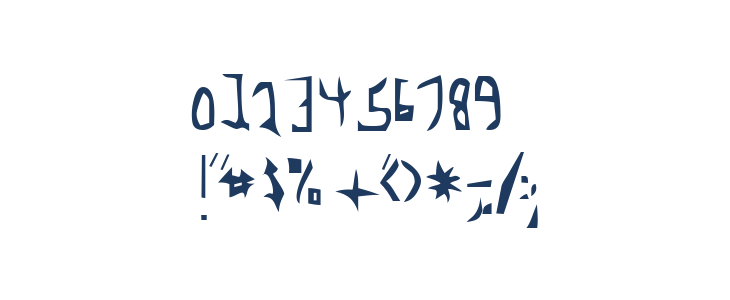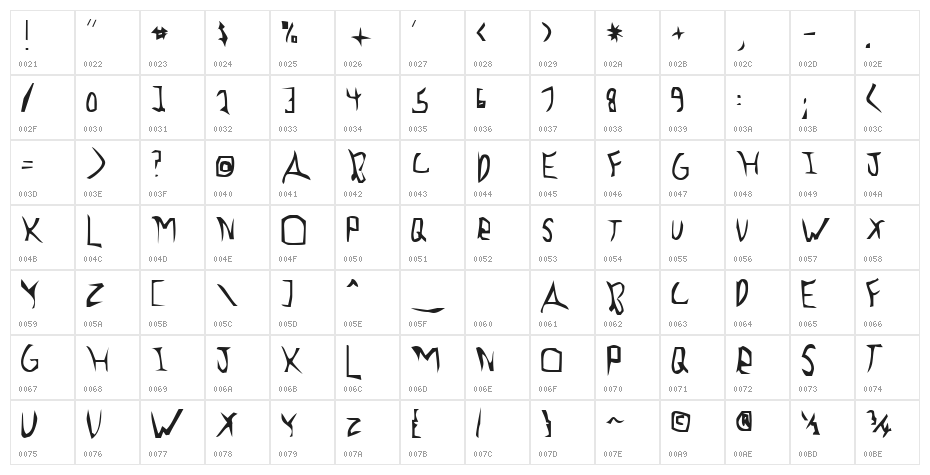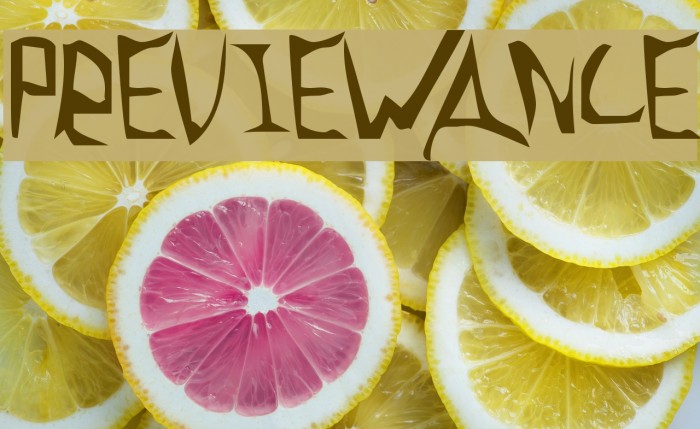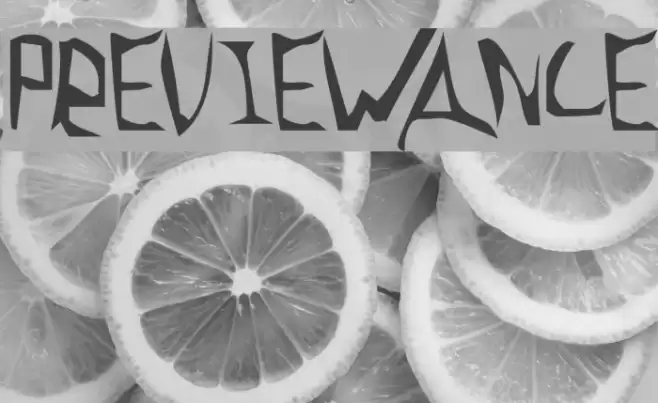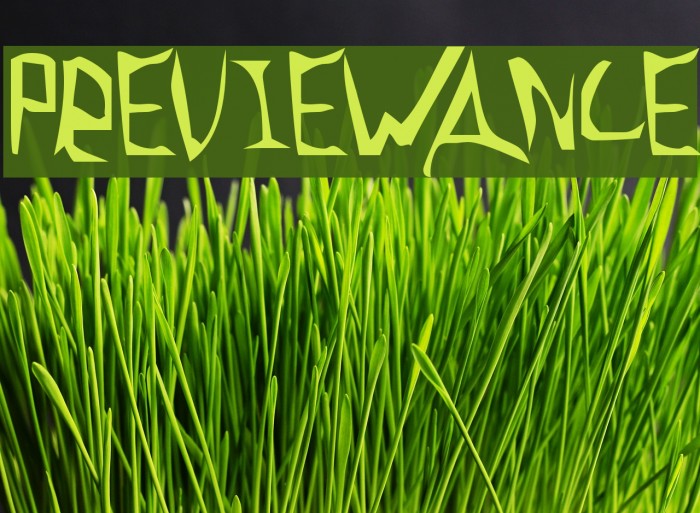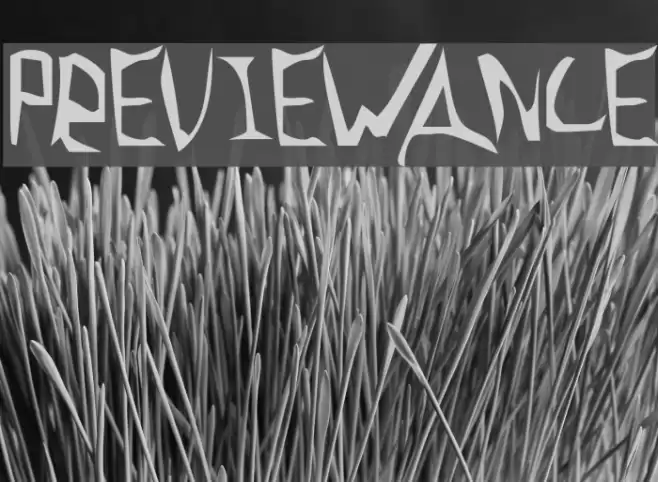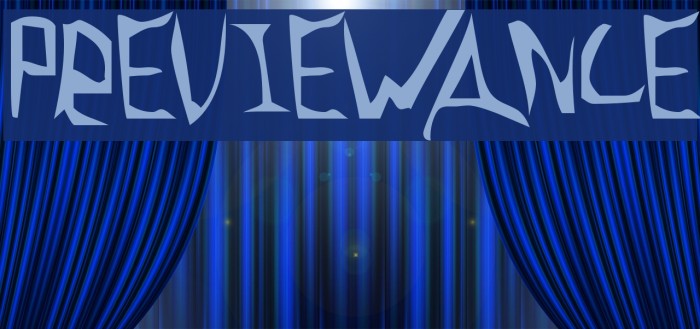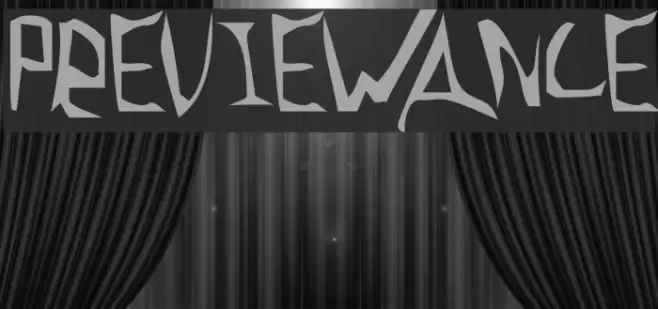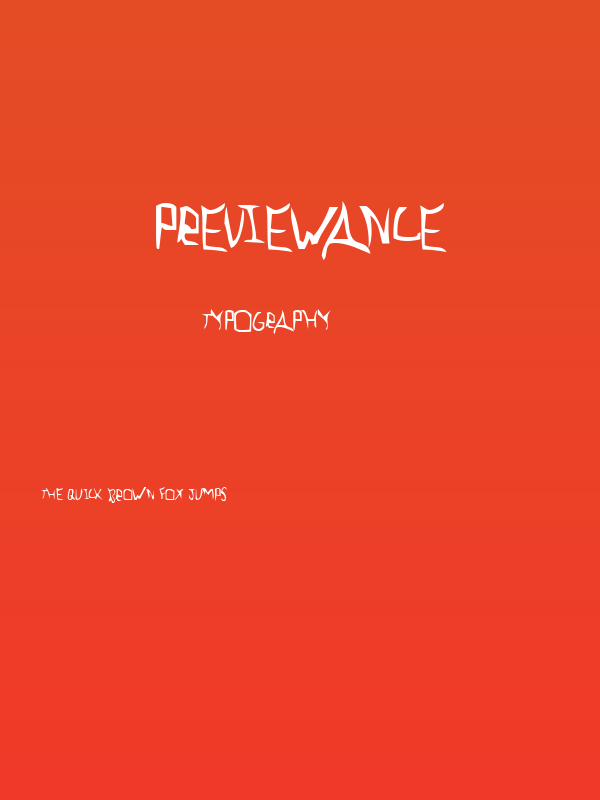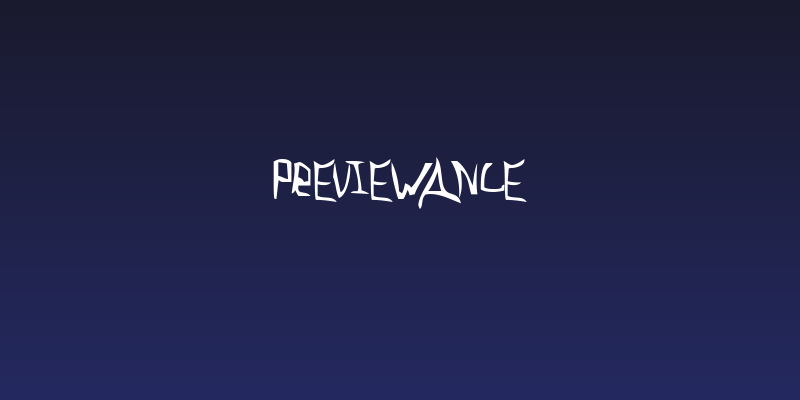
Previewance Font
Previewance Description
This font features a highly stylized and angular design, with sharp edges and a dynamic, energetic feel. The characters are bold and striking, with a unique geometric flair that gives them a modern and edgy appearance. The uppercase and lowercase letters maintain a consistent style, while the numerals and special characters complement the overall aesthetic. The font's design is reminiscent of graffiti or street art, making it ideal for projects that require a bold and unconventional look.
| Proposed Projects | Ideal for street art designs, edgy branding, music album covers, and urban-themed posters. |